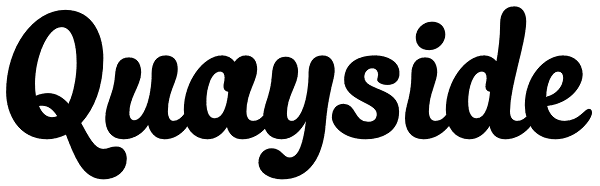
Quayside
Quayside is a deliciously thick and bulbous baseball script, with a wealth of OpenType features. Features include: Contextual alternates - I would suggest having these on by default; they make letters connect more smoothly (uppercase letters like M...